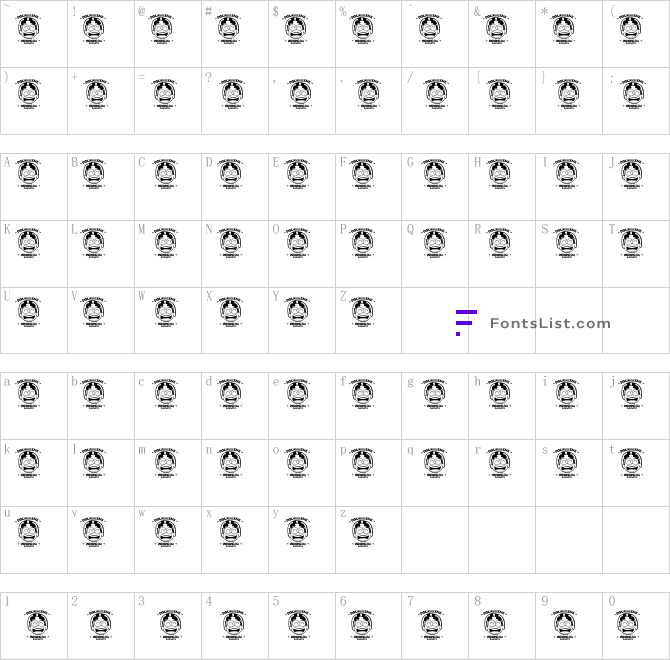
- Font Name:AWAN NUSANTARA
AWAN-NUSANTARA.ttf is a very beautiful artistic font, AWAN-NUSANTARA.ttf is widely used in the design and printing of various books and pictures,AWAN-NUSANTARA.ttf has a strong visual impact,AWAN-NUSANTARA.ttf is a commonly used font in newspapers, magazines and books, and is used in posters, e-commerce Poster design, store design, logo design, font design and other fields.AWAN-NUSANTARA.